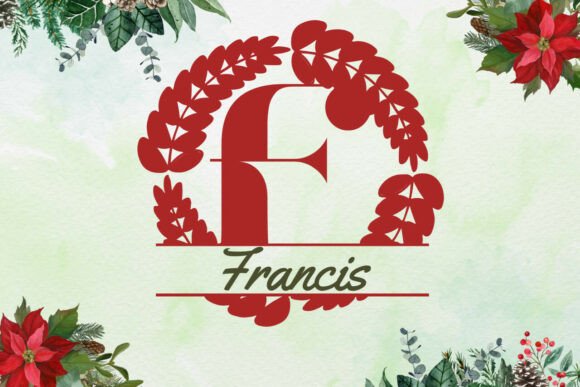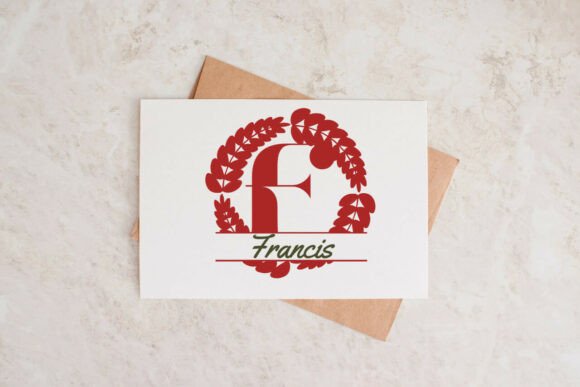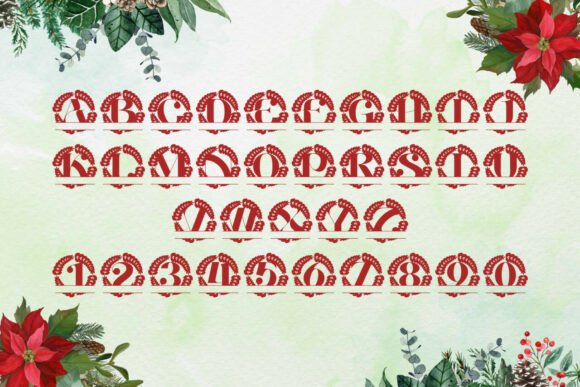
✨ Barlena Split Monogram Font: Instant Personalized Elegance
Introducing the Barlena Split Monogram Font, a clean, balanced typeface that instantly transforms any initial into a refined, name-ready emblem with calm elegance. This beautiful font is perfect for designers and crafters looking to add a touch of sophistication to their projects. In this article, we’ll explore the features and benefits of the Barlena Split Monogram Font and how it can elevate your designs.
A Precise Horizontal Split for Readability
One of the standout features of the Barlena Split Monogram Font is its precise horizontal split, which creates a natural, readable space for names, dates, or short words like “Welcome” and “Love.” This thoughtful design element ensures that your text is easy to read, even at small sizes. Whether you’re creating tiny tags or large statement wall art, the Barlena Split Monogram Font guarantees that your designs will look crisp and clear.
Highly Polished Letterforms and Even Spacing
The Barlena Split Monogram Font boasts highly polished letterforms and even spacing, making it perfect for a wide range of applications. The font’s clean lines and balanced proportions create a sense of harmony and elegance, while the even spacing ensures that your text is easy to read. This attention to detail makes the Barlena Split Monogram Font an excellent choice for personalized wedding keepsakes, family signs, ornaments, menus, and boutique packaging.
Perfect for Personalized Designs
The Barlena Split Monogram Font is designed with personalization in mind. Use a single hero initial with a family name placed inside the split for instant personalization, or try a couple of names for engagement gifts and venue names for signage. The font’s versatility and elegance make it perfect for a wide range of projects, from wedding decorations to family heirlooms.
Pairing Options
The Barlena Split Monogram Font pairs flawlessly with a simple sans-serif or a light script, ensuring every layout remains readable and premium. This allows you to mix and match fonts to create a unique and visually appealing design. Whether you’re a designer or a crafter, the Barlena Split Monogram Font is an excellent addition to your font library.
Where This Font Excels
The Barlena Split Monogram Font excels in a variety of applications, including:
- Personalized wedding keepsakes, such as wedding signs, monograms, and decorations
- Family signs and ornaments
- Menus and boutique packaging
- Engagement gifts and venue names for signage
- Any project that requires a touch of elegance and sophistication
Proportions that Favor Clarity
The Barlena Split Monogram Font is designed with clarity in mind. The font’s proportions favor readability, making it perfect for small and large designs alike. Whether you’re creating a tiny tag or a large statement piece, the Barlena Split Monogram Font ensures that your text is easy to read and visually appealing.
In conclusion, the Barlena Split Monogram Font is a beautiful and versatile font that can elevate any design. Its precise horizontal split, highly polished letterforms, and even spacing make it perfect for a wide range of applications. Whether you’re a designer or a crafter, this font is an excellent addition to your font library. With its elegance, sophistication, and readability, the Barlena Split Monogram Font is sure to become a favorite in your design arsenal.